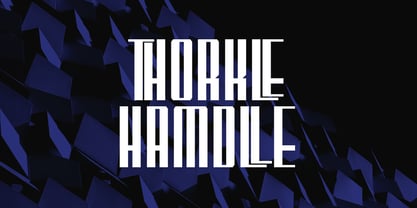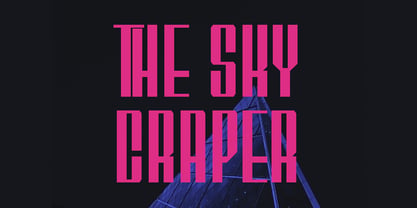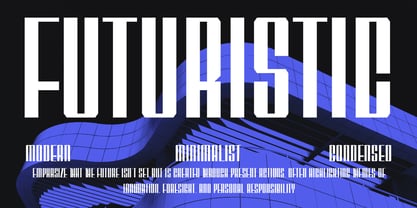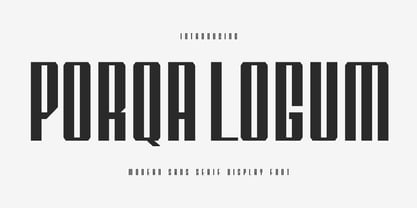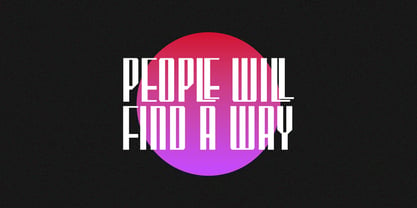
MC Porqa Logum
by Maulana Creative
The MC Porqa Logum Font Family was designed by Gilang Maulana and published by Maulana Creative. MC Porqa Logum contains 1 styles. More about this family
Porqa Logum is a bold, modern, and highly condensed sans-serif display font that commands attention. With its strong, futuristic aesthetic, this font features tall, geometric forms and unique inner cuts, creating a distinctive sci-fi, hi-tech, and minimal look. It is ideal for projects requiring a powerful visual impact, including movie titles, video game branding, music and film promotions, modern logos, and sophisticated layouts. Porqa Logum offers full uppercase letters, multilingual support with special characters, and a comprehensive set of numbers and punctuation. This font is an excellent choice for designers looking to convey themes of innovation, technology, and architecture, all while maintaining a bold, forward-looking perspective. Its clean yet impactful design makes it versatile for both digital and media applications where a strong, minimalist statement is desired.